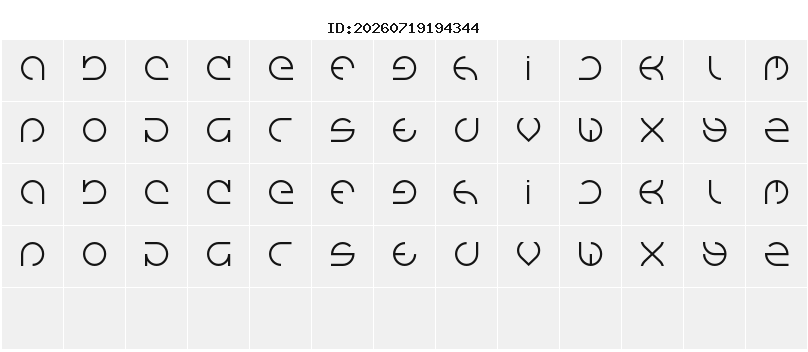
emmilia Preview
• Font Name: emmilia
• Full Font Name: emmilia
• Version: Version 1.00 February 25, 2011, initial release
About emmilia.ttf
emmilia.ttf is a modern, elegant sans-serif font designed for ultimate readability and visual harmony. Perfect for branding, headlines, web design, and print materials.